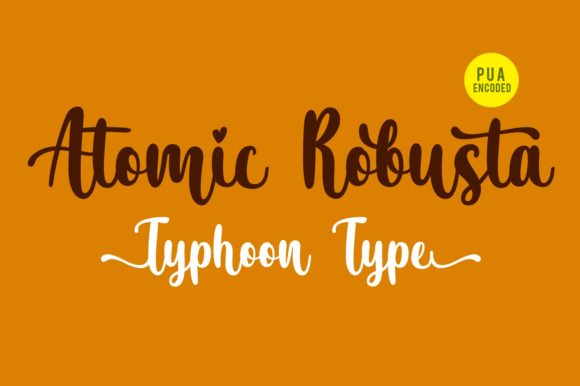
Introducing Atomic Robusta Font: Elevate Your Designs with a Unique Handwritten Touch
Are you tired of using the same old fonts in your design projects? Do you want to add a personal touch that sets your work apart from the rest? Look no further than Atomic Robusta Font, an amazing and unique handwritten font that is sure to turn any design project into a standout. Inspired by heart doodles, Atomic Robusta brings a beautiful feel to your designs, making it perfect for designers and crafters alike.
The Inspiration Behind Atomic Robusta
Atomic Robusta Font draws its inspiration from the simplicity and charm of heart doodles. These playful and often imperfect sketches have a way of conveying emotion and personality, making them a favorite among designers and artists. By capturing the essence of these doodles, Atomic Robusta brings a sense of warmth and approachability to your designs, making them more relatable and engaging.
What Makes Atomic Robusta Stand Out
So, what sets Atomic Robusta apart from other fonts on the market? Here are just a few features that make it a must-have for designers and crafters:
- Unique Handwritten Style: Atomic Robusta boasts a distinctive handwritten style that adds a personal touch to any design project. Its flowing lines and subtle imperfections give it a charming, one-of-a-kind feel.
- Versatility: Whether you’re working on a logo, branding materials, social media graphics, or craft projects, Atomic Robusta is versatile enough to fit any design need.
- Emotional Connection: The font’s inspiration from heart doodles gives it an emotional and personal feel, allowing designers to create work that resonates with their audience on a deeper level.
- Ease of Use: Designed with usability in mind, Atomic Robusta is easy to read and works well in both digital and print formats.
Atomic Robusta Font is not just a font; it’s a tool that empowers designers and crafters to bring their creative visions to life. For designers, it offers a fresh and unique aesthetic that can elevate any project. For crafters, it provides a professional and polished look that can add value to handmade products and DIY projects.
How to Use Atomic Robusta in Your Projects
Integrating Atomic Robusta into your design workflow is straightforward. Here are some tips on how to make the most of this versatile font:
- Pair it with Other Fonts: Combine Atomic Robusta with complementary fonts to create visual interest and hierarchy in your designs.
- Experiment with Colors: The emotional and personal feel of Atomic Robusta pairs well with a wide range of colors. Don’t be afraid to experiment and find the perfect color scheme for your project.
- Use it in Digital and Print: From social media graphics to business cards, Atomic Robusta works beautifully in both digital and print formats.
Atomic Robusta Font is more than just a font; it’s a creative tool that can transform your design projects. With its unique handwritten style inspired by heart doodles, it brings a beautiful and personal touch to any design. Whether you’re a designer looking to elevate your work or a crafter aiming to add a professional edge to your projects, Atomic Robusta is the perfect choice. So why settle for ordinary when you can make your designs stand out with Atomic Robusta Font?